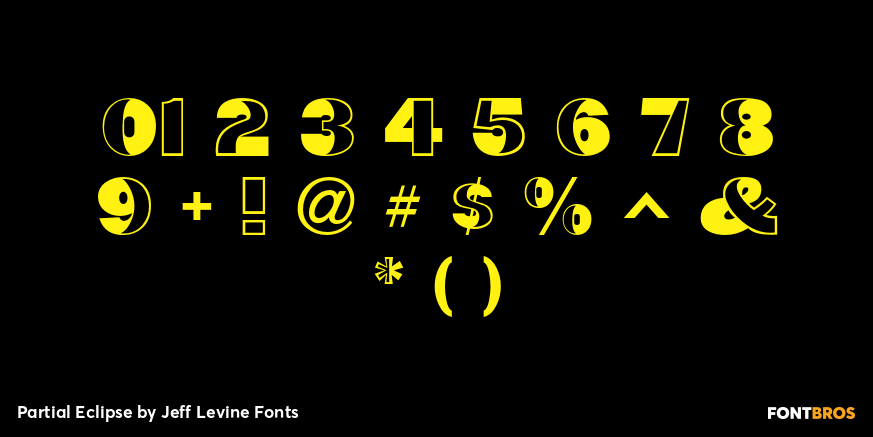
Partial Eclipse
Take a classic wood type design, add some white panels to parts of the letters and numbers and you end up with Partial Eclipse JNL, a novelty display font that adds a clean, yet unique look to your digital or print project. A little experimentation can go a long way.